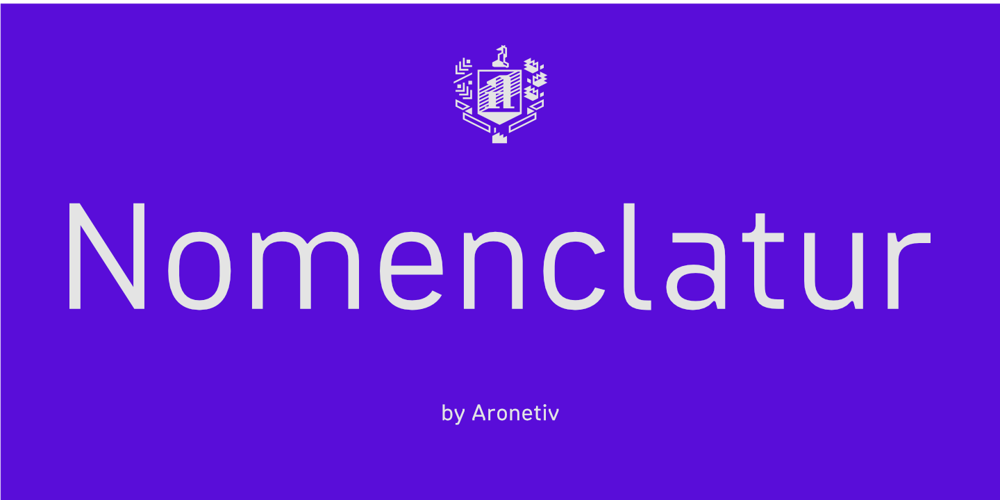
Nomenclatur Font Family was designed by Aleksey Popovtsev and published by Aronetiv. Nomenclatur contains 16 styles and family package options. The font was created under the influence of German tabular inscriptions. Especially, DIN font influenced on Nomenclatur graphic. It adds clarity and conciseness in the font. Nomenclatur is intended for use in architectural and design topics. It is also intended for a set of instructions and manuals. The font has the aesthetics of the Bauhaus and other constructivist movements. Characters of font are designed with high intelligibility, which makes it well readable in a small size. The lowercase letter “l” has a tail, so as not to confuse it with the capital letter “I”, which has serifs. It avoids confusion in words like “Illinois”. The font is well suited for the design of signs and navigation texts. A wide selection of styles allows you to design complex typography.The font family includes 15 styles.The font family has a variable font with two axes of weight and width.The font contains a set of alternative characters that will allow you to create different moods.The font contains Western European Latin and standard Cyrillic.The font has more than 3,600 kerning pairs configured.The font contains beautiful ampersand.